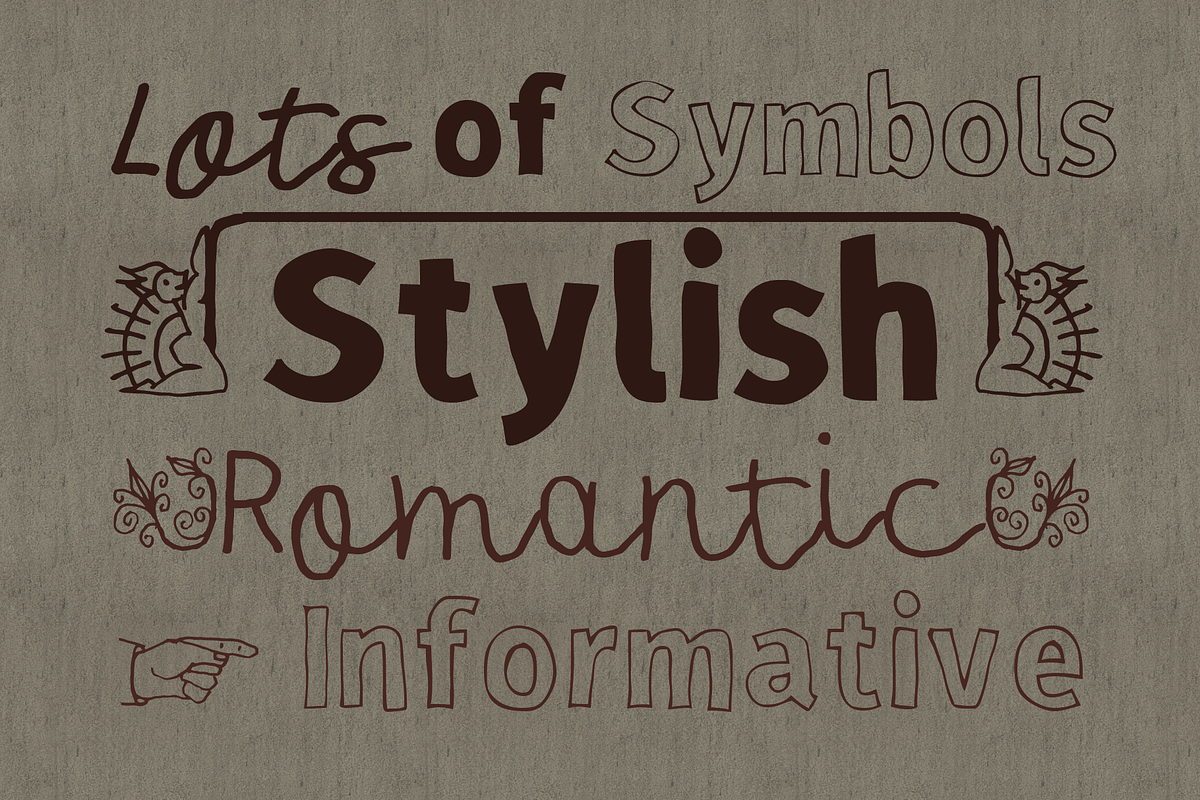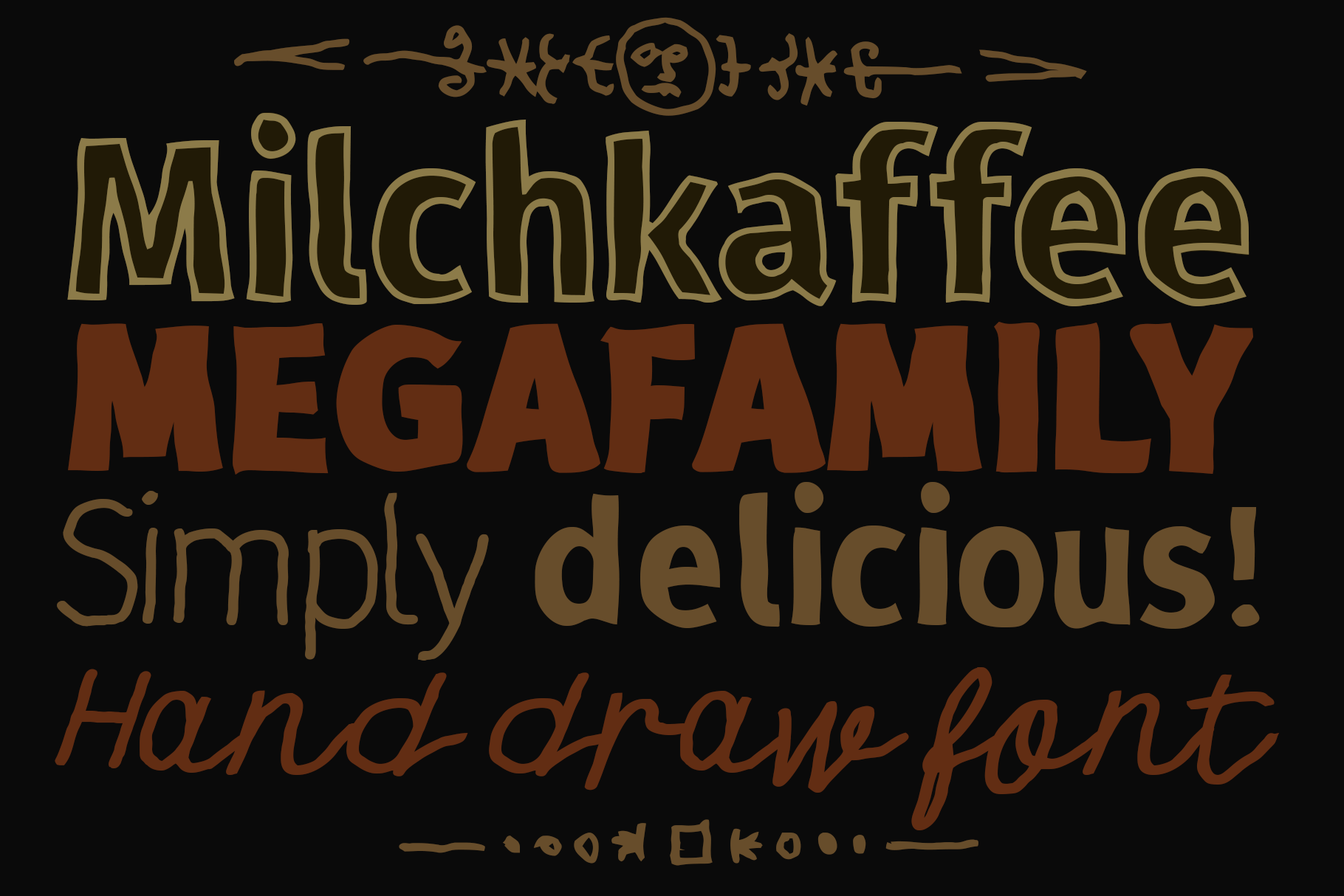
Milchkaffee Megafamily Font
Milchkaffee is a megafamily of hand drawn fonts. Sans serif, monoline, outlined or script; all share metrics and style, so they can be used together.
There are 14 fonts on this family and you got two extra symbol fonts:
- Milchkaffee 01 Regular
- Milchkaffee 01 Solid Regular
- Milchkaffee 02 Regular
- Milchkaffee 03 Regular
- Milchkaffee 04 Regular
- Milchkaffee 04 Solid Regular
- Milchkaffee 05 Bold
- Milchkaffee 05 Light
- Milchkaffee 05 Regular
- Milchkaffee 06 Bold Italic
- Milchkaffee 06 Bold
- Milchkaffee 06 Italic
- Milchkaffee 06 Regular
- Milchkaffee 07 Symbol Regular
- Party Popper Symbol
- SalymaOrnaments